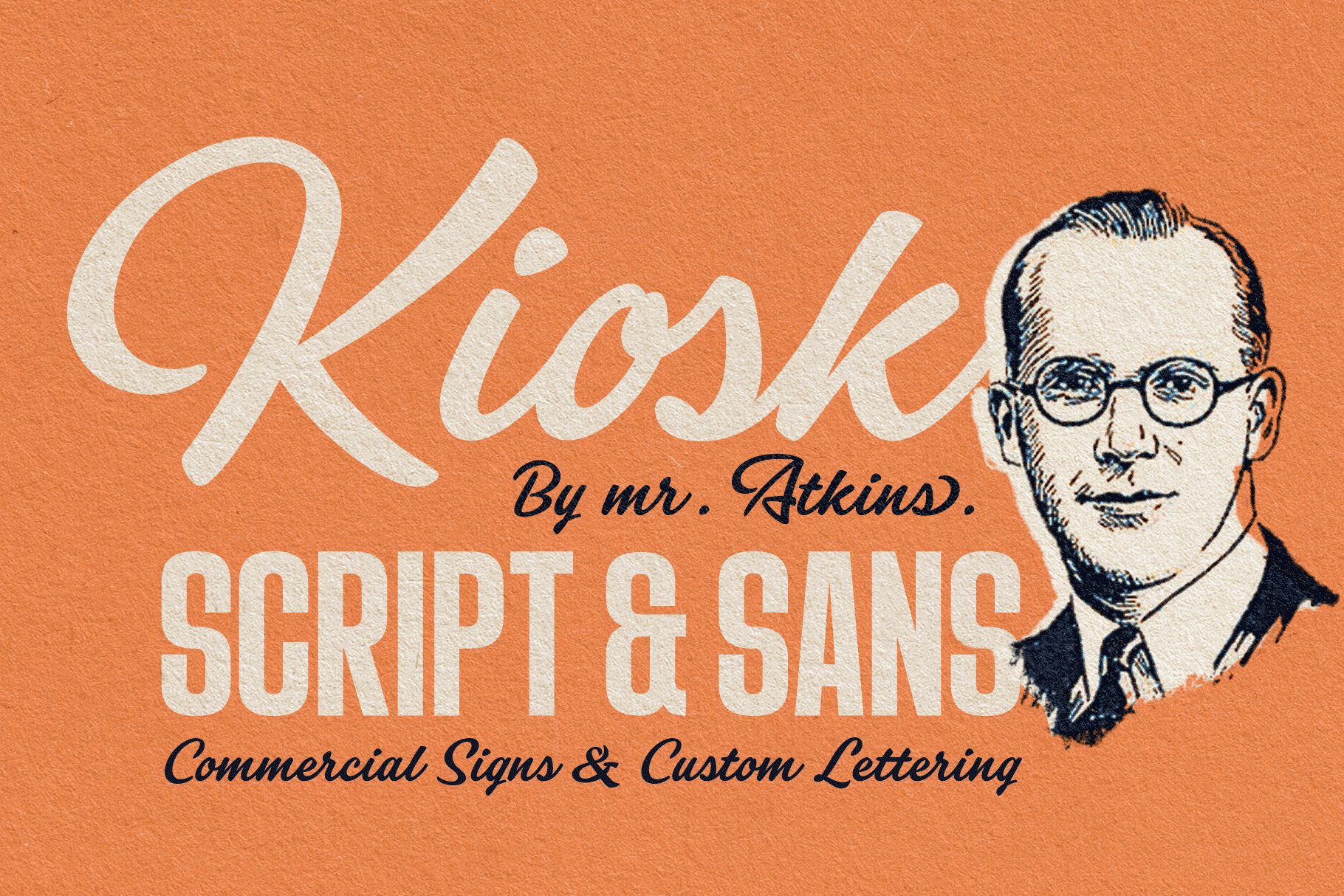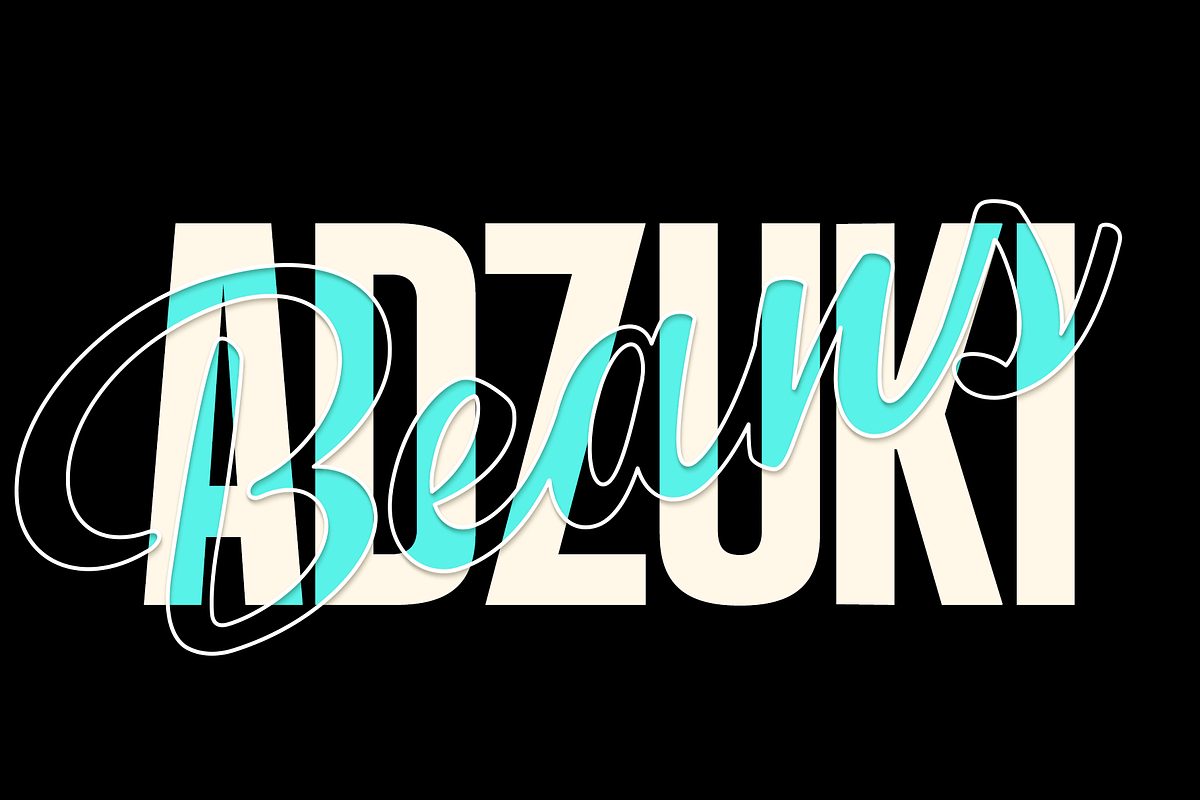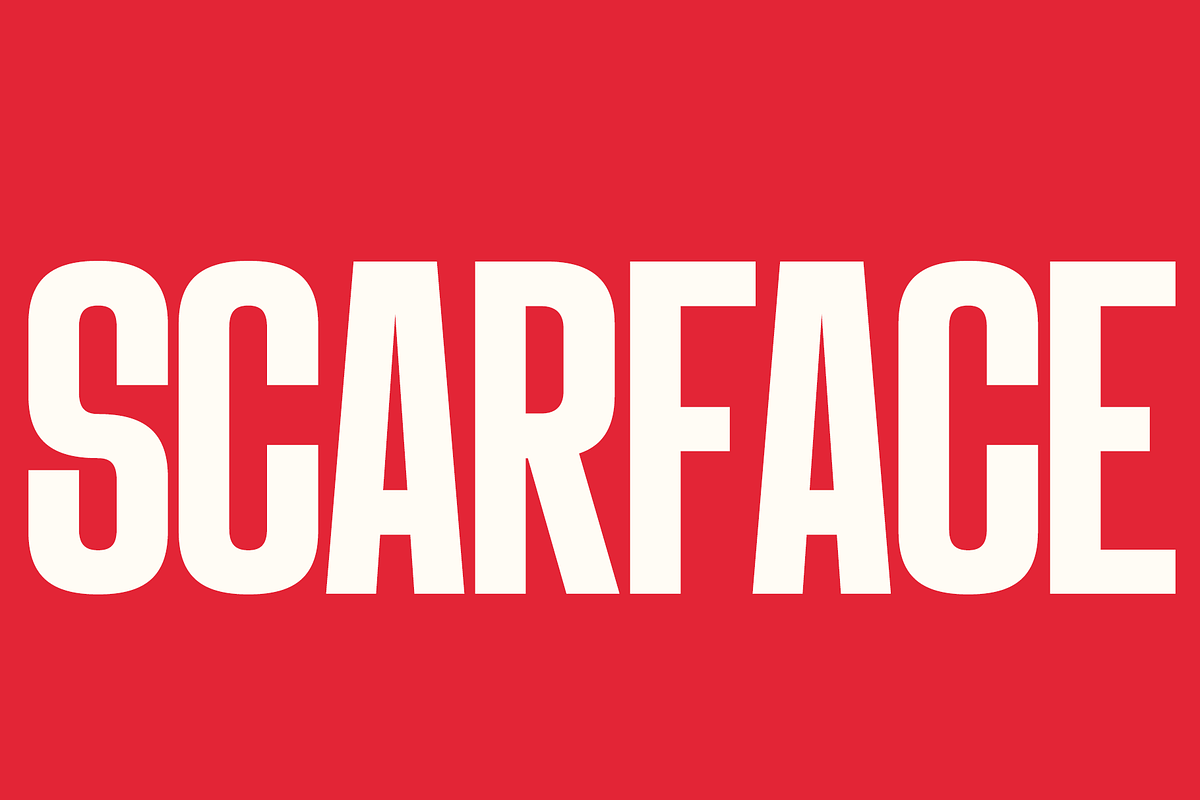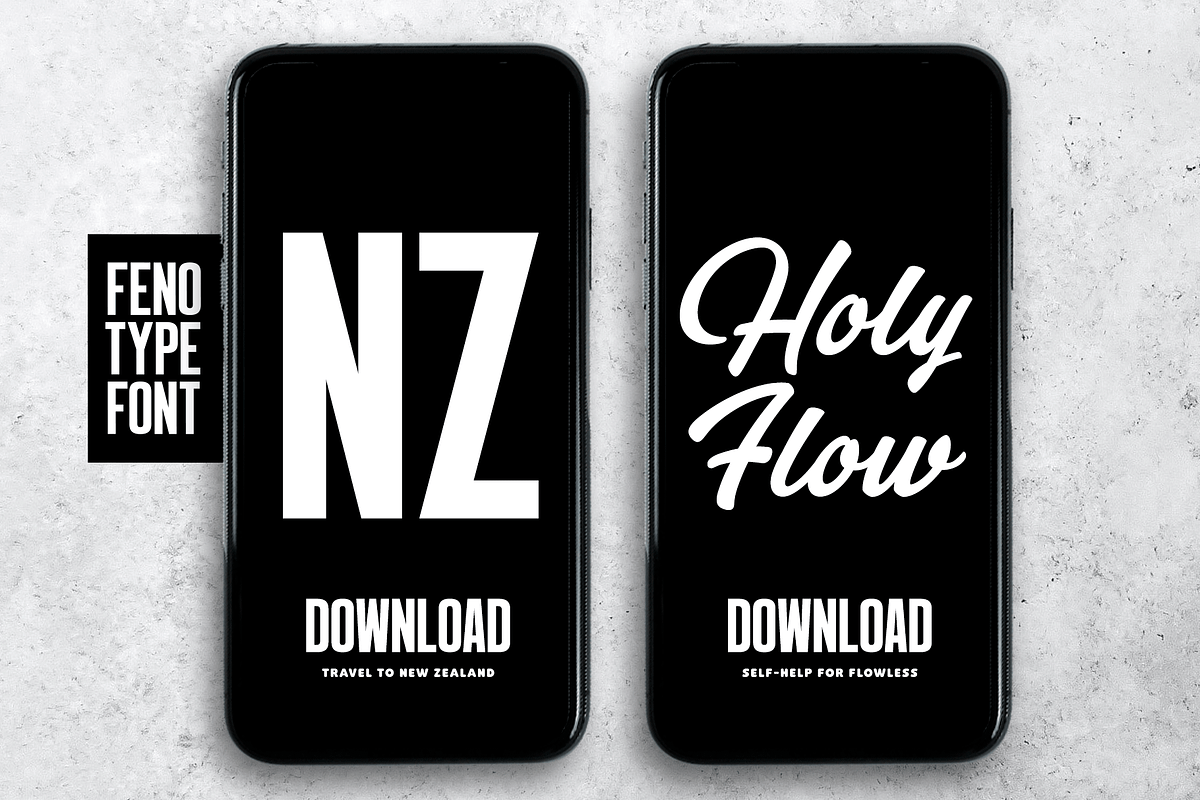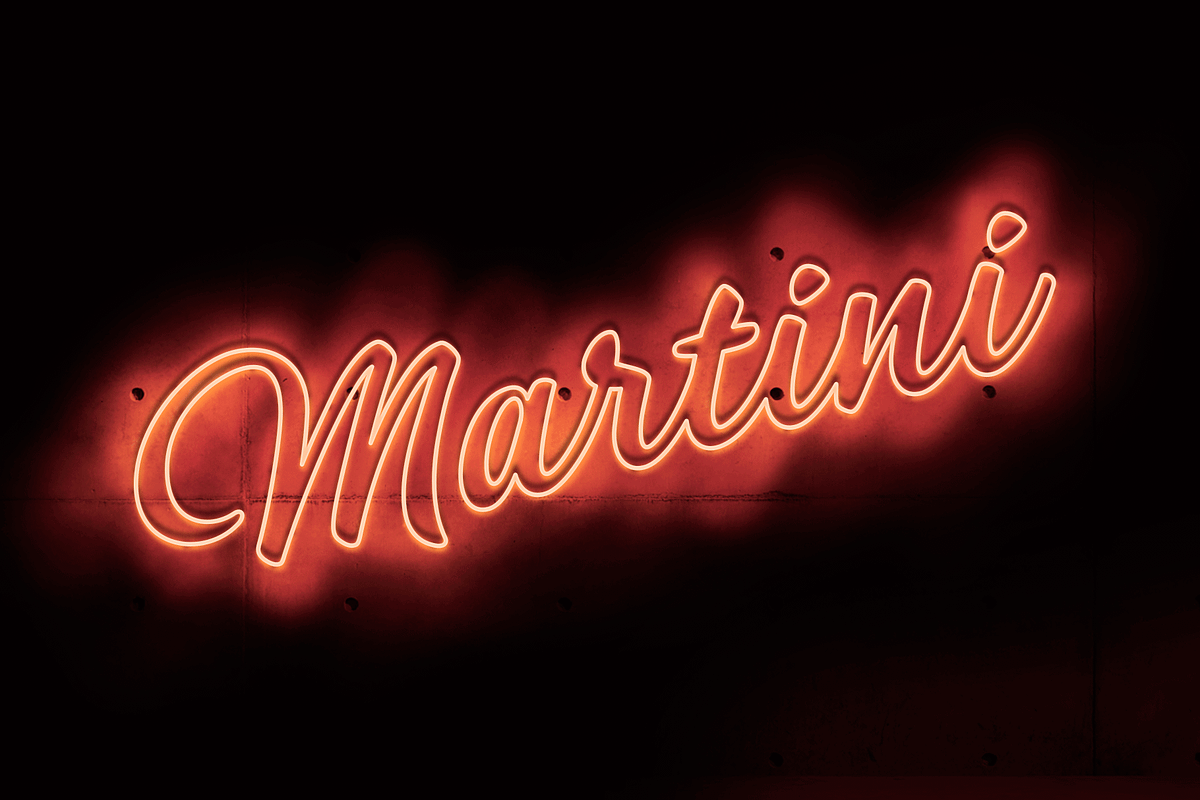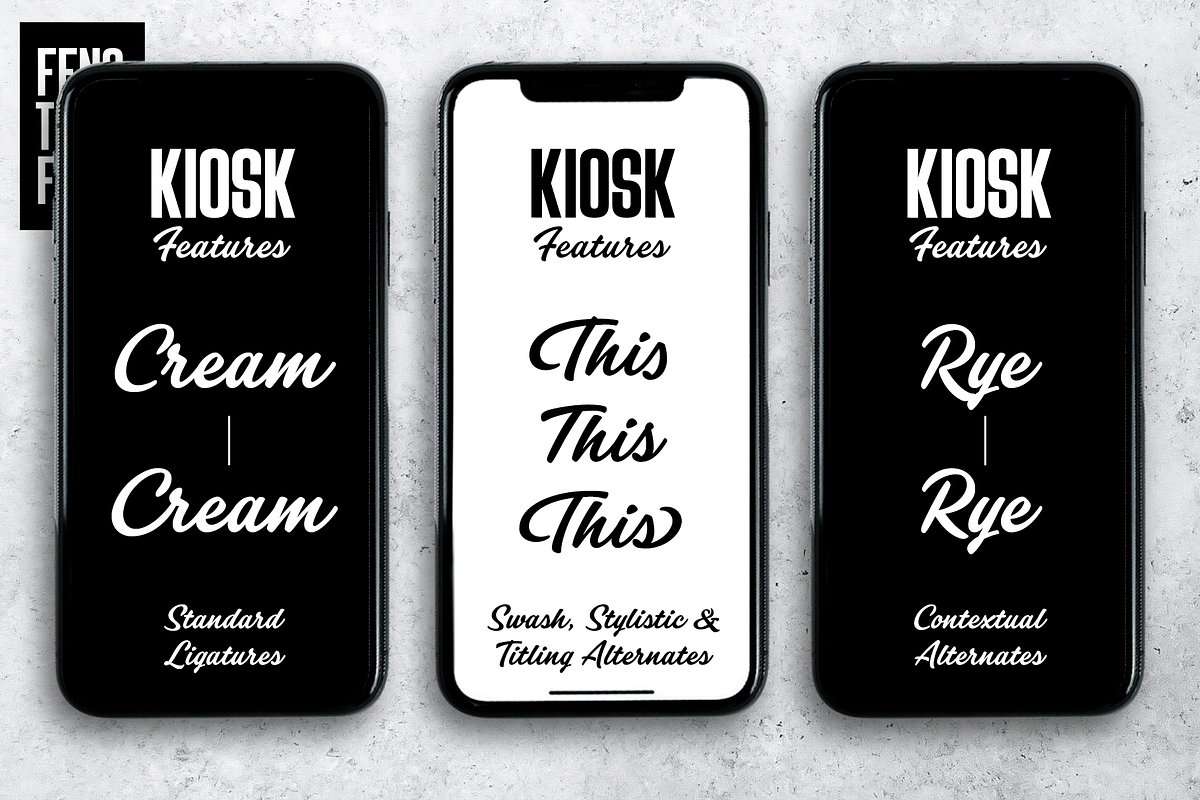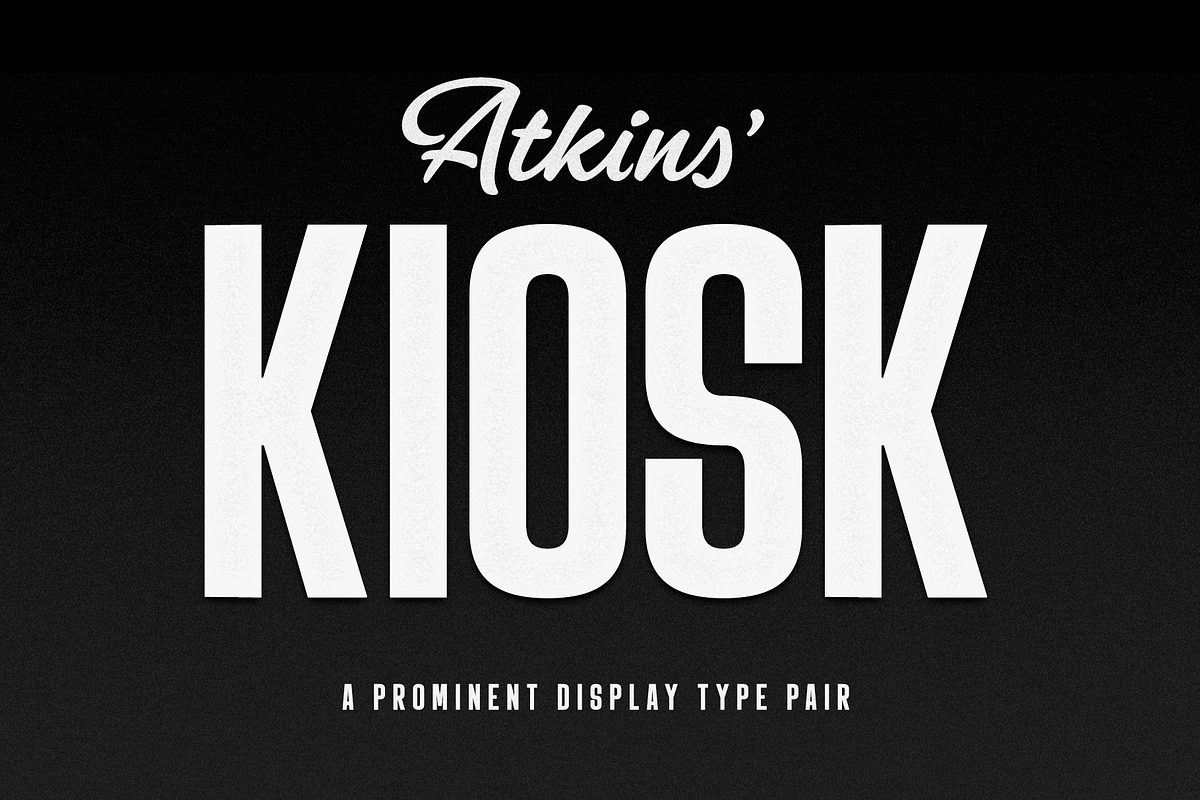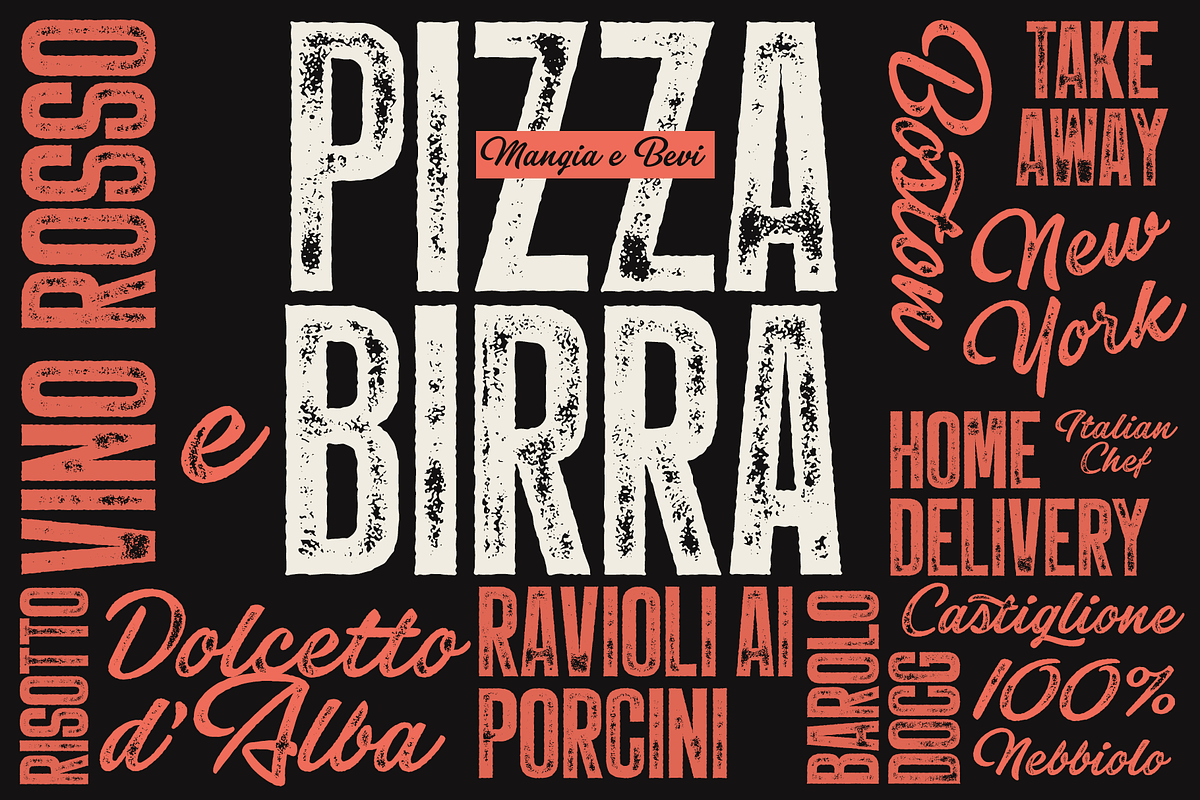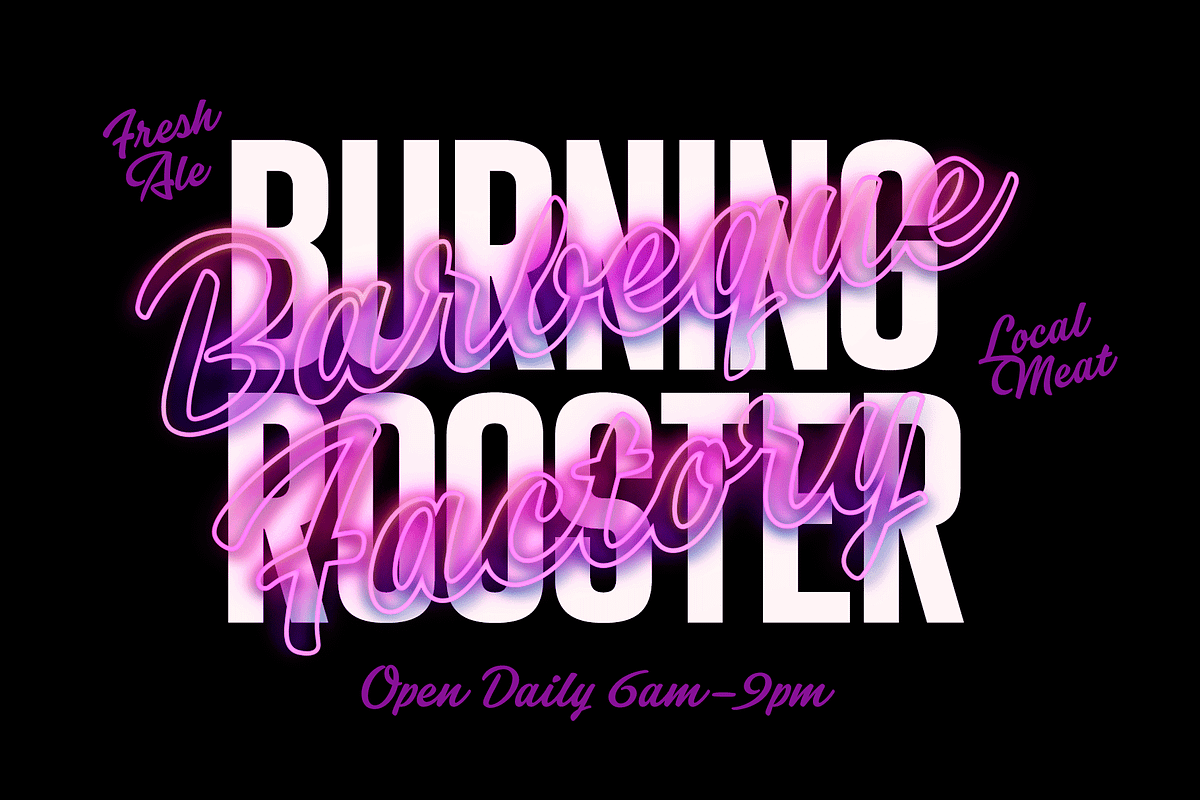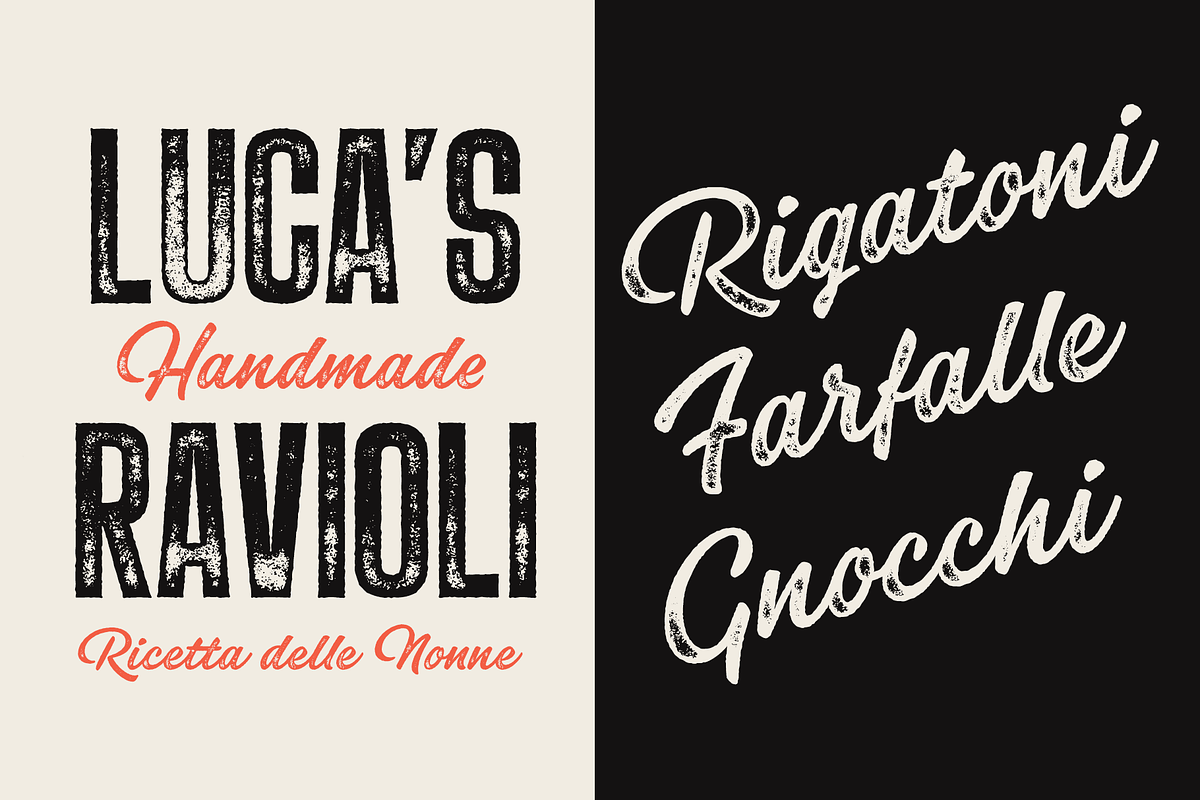
Kiosk Font Pack
Kiosk is a prominent display typeface pair. It is a sturdy condensed sans serif and an eloquent brush script. In addition there are textured “print” versions of them both.
Kiosk fonts work as a pair or as themselves. Sans is great for sturdy headlines, menu titles, packaging or any such, the bigger the better. Script is great as a logotype, used for quotes, magazines, packaging and branding. Textured versions are the same fonts with a rugged outline and with a “stamp” texture inside the letters.
Kiosk Script is equipped with several OpenType features. It has Contextual Alternates and Standard Ligatures that are automatically help to keep the connections smooth. They’re both automatically on. In addition it has Swash, Stylistic and Titling Alternates and even more alternates for some characters. The font is PUA encoded and you can access alternate characters from OpenType controls or manually from Character or Glyphs window.